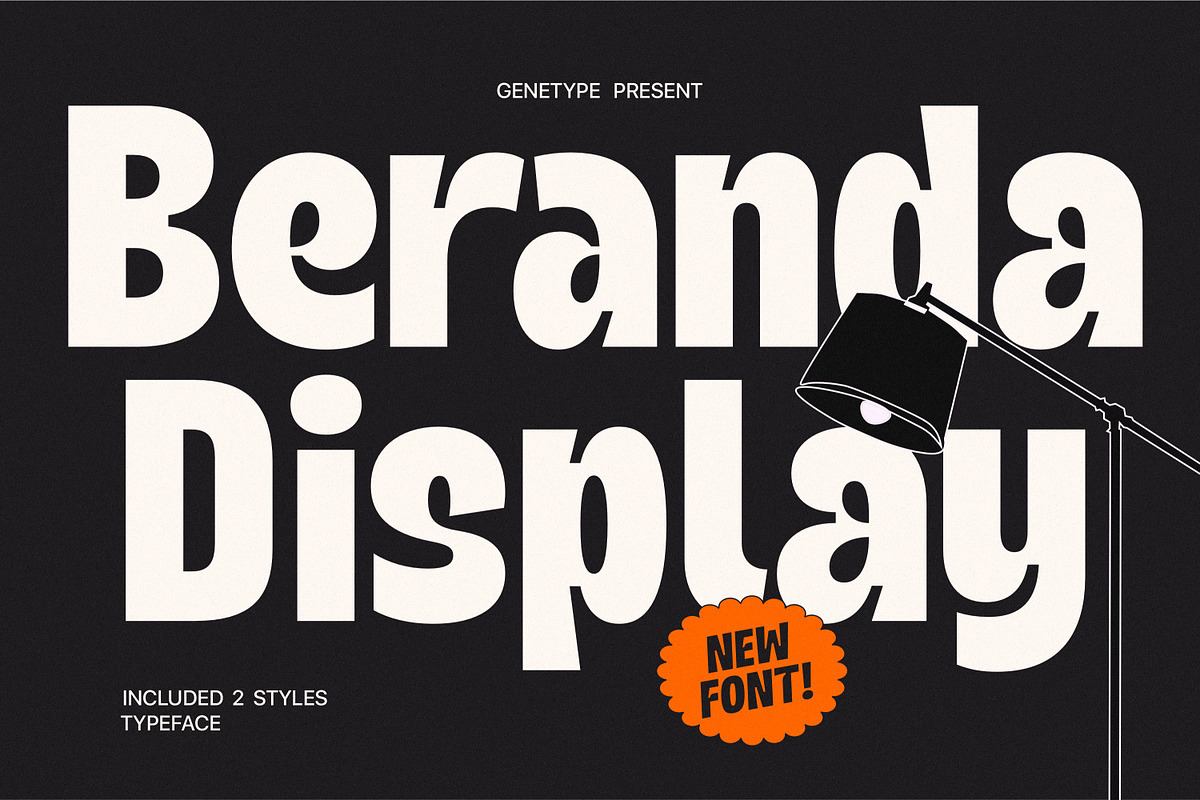
Beranda Display Font Free Download is a bold and stylish typeface designed for high-impact designs. With its unique letterforms and strong character, this font is ideal for headlines, posters, logos, branding, and any project that requires a striking visual presence. Its display style makes it perfect for projects that need to grab attention, whether in print or digital media.
Whether you’re designing a modern brand identity, creating a trendy poster, or crafting eye-catching promotional materials, Beranda brings energy and sophistication to your typography.